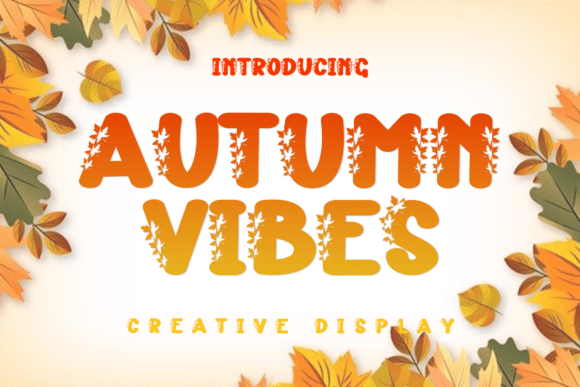
Cozy Up with Autumn Vibes Font: A Seasonal Design Essential
- ✨ Unique and Charming Details: The leaf details in this font are simply adorable, adding a touch of whimsy to any design.
- ✅ Perfect for Seasonal Projects: From Thanksgiving invitations to autumn sales promotions, this font screams fall.
- 🎉 Playful and Versatile: It works beautifully for both digital and print projects, and its playful vibe makes it perfect for crafts and DIY designs.
A Few Quirks to Keep in Mind
- 🤔 Legibility at Small Sizes: While it’s stunning at larger sizes, the font’s intricate details can get a bit lost when scaled down. Keep this in mind for body text or smaller design elements.
- ⚠️ Limited Use Outside of Fall: Let’s face it, this font is very seasonal. It might not be the best choice for designs outside of the autumnal theme.
The Story Behind Autumn Vibes Font
The creator of Autumn Vibes Font, a talented typographer with a passion for seasonal design, was inspired by the vibrant colors and cozy atmosphere of fall. They aimed to craft a font that would evoke the warmth and playfulness of the season, making it perfect for a wide range of autumnal projects.
| Font Name | Autumn Vibes Font |
| Author | Black line |
Q: What makes Autumn Vibes Font unique?
A: Its charming leaf details and warm, playful vibe make it stand out as a seasonal font.
Q: Is Autumn Vibes Font suitable for body text?
A: While beautiful, its intricate details might make it less ideal for long body text. Consider using it for headings or accent text.